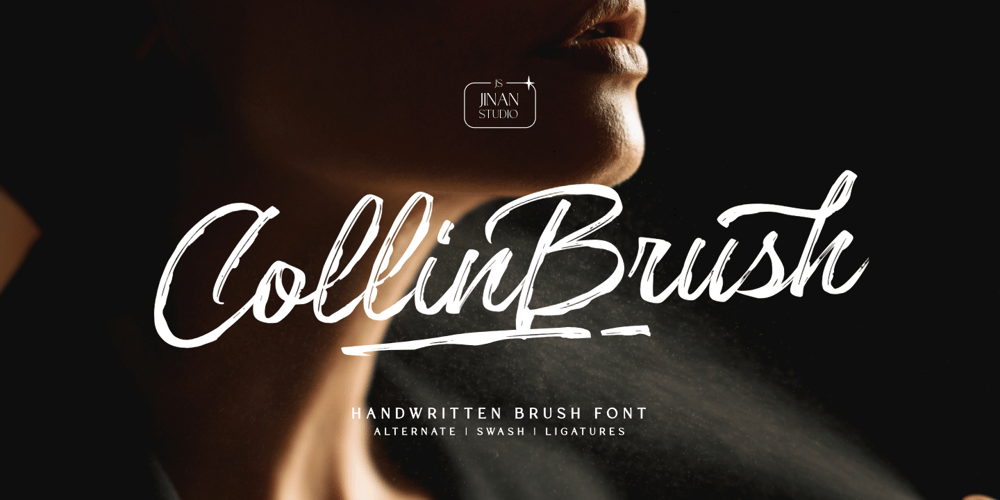
Collinbrush Font Family was designed by Andi Syahdang, Ainun Jinan and published by Jinan Studio. Collinbrush contains 1 styles and family package options. Crafted with sophistication and artistic finesse, Collinbrush offers a sultry handwritten brush font that effortlessly injects a unique, personal flair into your every creation. Its signatures lie within its seemingly spontaneous, fluid strokes, and an intrinsic collection of alternates, swashes, and ligatures. Ideal for captivating logos, emotionally resonant quotes, stylish invitations, and a whole lot more, these fonts lend an authentic aura to your designs. Experience a vivid revival of your creative work with the elegant charm and dynamic adaptability of Collinbrush.Features A set of uppercase and lowercase glyphs Number, symbol, and punctuation Multilingual Support Alternates, ligatures, and swashes PUA encoded Type j_1 until j_9 to features swash, ligatures will automatically replace the standard letter pairs whenever available, when using any OpenType capable software.